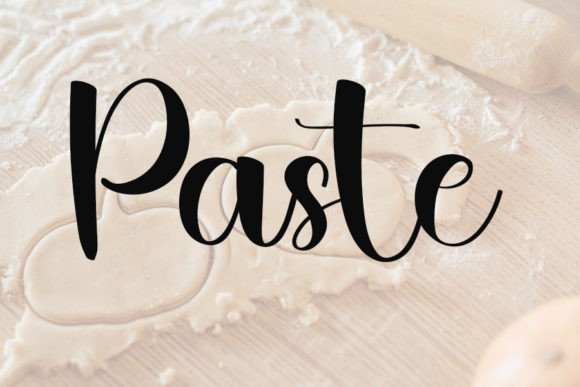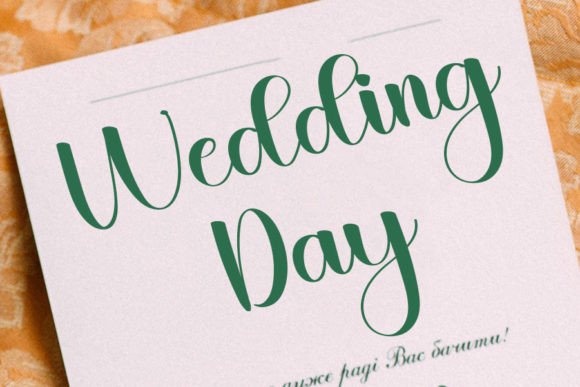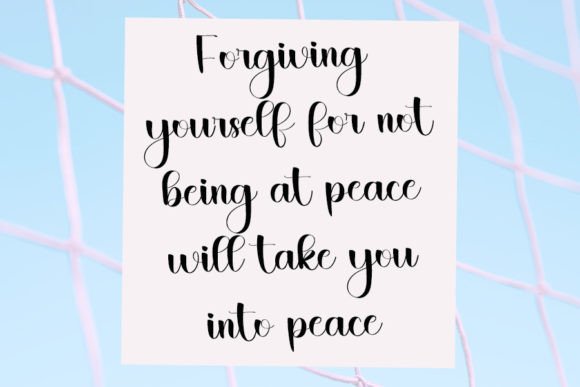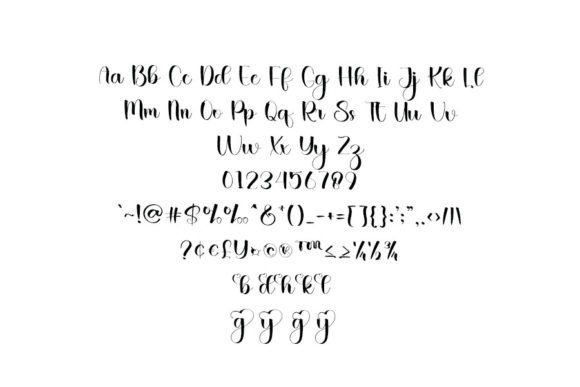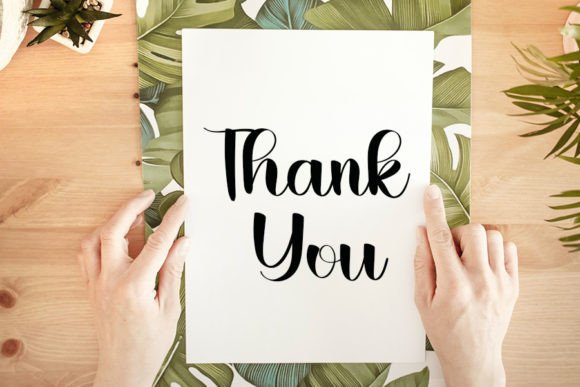
Daddy Font: Elevate Your Designs with Elegance and Timeless Style
Are you on the hunt for a font that exudes elegance, sophistication, and a touch of handmade charm? Look no further than the Daddy Font, a stunning handwritten typeface that is sure to capture your heart. With its distinct and timeless style, this beautiful font is perfect for designers and crafters looking to add a personal touch to their projects.
The Characteristics of Daddy Font
Daddy Font is a meticulously crafted handwritten font that boasts an elegant touch, making it ideal for a wide range of design applications. Its unique characteristics include:
- Handwritten with love: Each letter has been carefully written by hand, giving the font a personal and organic feel.
- Elegant and sophisticated: The font’s flowing lines and curves create a sense of luxury and refinement, perfect for high-end designs.
- Distinct and timeless style: The Daddy Font’s unique style sets it apart from other fonts, ensuring your designs will stand out from the crowd.
The versatility of Daddy Font makes it suitable for a wide range of design projects, including:
- Branding and logos: Create a lasting impression with a custom logo that showcases your brand’s personality.
- Wedding and event invitations: Add a touch of elegance and romance to your special occasion stationery.
- Packaging and product design: Stand out on store shelves with eye-catching packaging that reflects your brand’s style.
- Social media graphics and posts: Elevate your online presence with stunning graphics that showcase your creativity.
- Unique and distinctive: The Daddy Font’s one-of-a-kind style ensures your designs will be instantly recognizable.
- Elegant and sophisticated: This font’s refined aesthetic makes it perfect for high-end designs and luxury brands.
- Easy to read and use: Despite its elegant appearance, the Daddy Font remains highly legible, making it suitable for body text and headlines.
- Pair with complementary fonts: Combine Daddy Font with sans-serif fonts for a striking contrast.